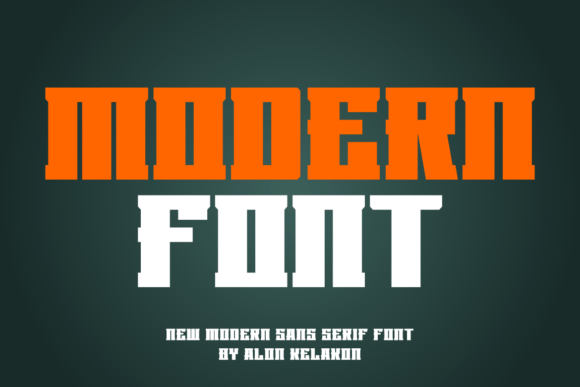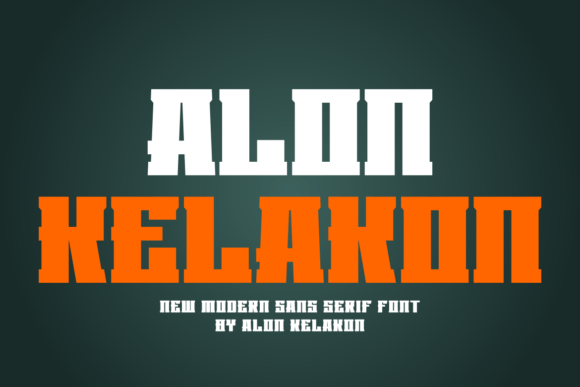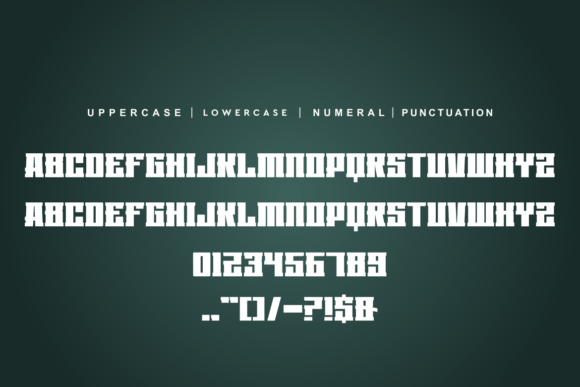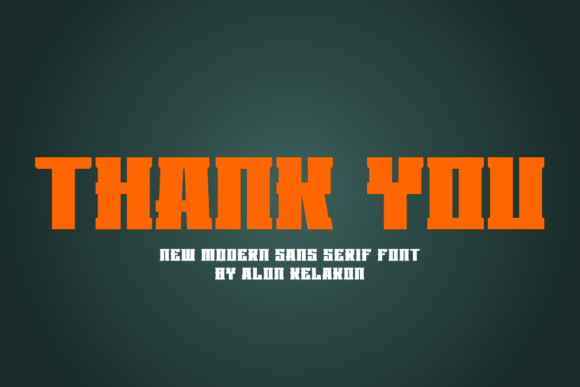
Goparek Font: A Bold and Authentic Display Font for Your Creative Projects
In the world of typography, a font can make or break a design. It’s the perfect blend of style, elegance, and personality that can elevate a creation from ordinary to extraordinary. If you’re a designer, crafter, or simply someone who loves to dabble in creative projects, you’re in luck! Introducing Goparek Font, a bold and authentic display font that’s about to become your new favorite asset in your font library.
The Power of Goparek Font
Goparek Font is a versatile and attention-grabbing display font that’s perfect for a wide range of projects. Whether you’re working on a logo, a poster, a website, or a social media graphic, this font will add a touch of sophistication and style to your design. Its bold and authentic feel makes it ideal for headlines, titles, and short paragraphs of text, while its clean and legible design ensures that your message gets across clearly.
What Makes Goparek Font Special?
So, what sets Goparek Font apart from other fonts out there? Here are just a few reasons why this font is a must-have for designers and crafters:
- Unique Character: Goparek Font has a distinct personality that sets it apart from other fonts. Its bold and authentic feel makes it perfect for creating eye-catching designs that grab attention.
- Versatility: This font is incredibly versatile and can be used for a wide range of projects, from logos and posters to websites and social media graphics.
- Clean and Legible: Despite its bold feel, Goparek Font is clean and legible, making it perfect for short paragraphs of text and headlines.
- Easy to Read: The font’s clear and concise design ensures that your message gets across quickly and easily, making it perfect for designs where you want to communicate a message quickly.
How to Use Goparek Font in Your Designs
Using Goparek Font in your designs is incredibly easy. Here are just a few ways you can incorporate this amazing font into your creative projects:
- Headlines and Titles: Use Goparek Font to create bold and attention-grabbing headlines and titles that draw the eye.
- Logos and Branding: This font is perfect for creating logos and branding materials that need to make a statement.
- Posters and Flyers: Add a touch of style and sophistication to your posters and flyers with Goparek Font.
- Websites and Social Media: Use this font to create eye-catching social media graphics and website headers that grab attention.
Tips and Tricks for Getting the Most Out of Goparek Font
Here are just a few tips and tricks for getting the most out of Goparek Font:
- Experiment with Colors: Try pairing Goparek Font with different colors to create a unique and eye-catching design.
- Play with Sizes: Experiment with different font sizes to create visual interest and hierarchy in your design.
- Combine with Other Fonts: Try pairing Goparek Font with other fonts to create a unique and visually appealing design.
In conclusion, Goparek Font is a bold and authentic display font that’s perfect for designers, crafters, and anyone who loves to dabble in creative projects. Its unique character, versatility, and clean and legible design make it a must-have for any font library. Whether you’re working on a logo, poster, website, or social media graphic, Goparek Font is sure to enhance your creation and add a touch of style and sophistication. So why wait? Download Goparek Font today and start creating amazing designs that grab attention!